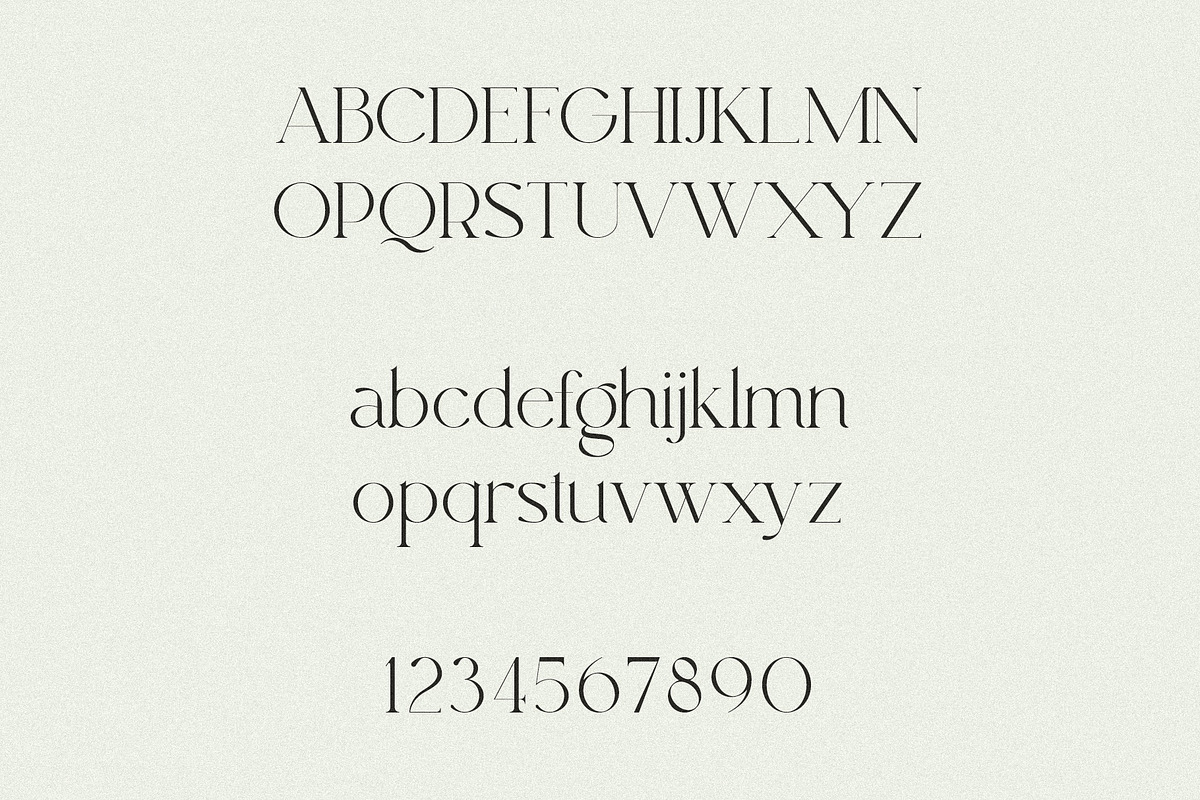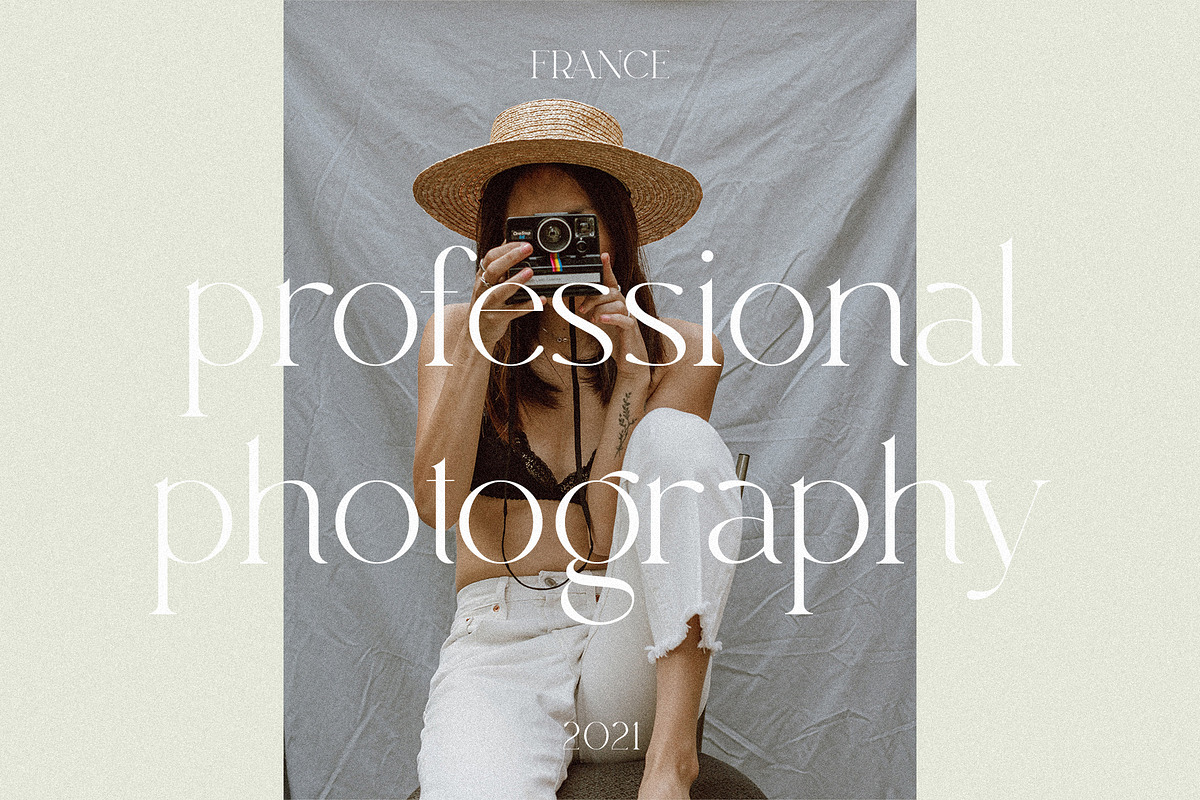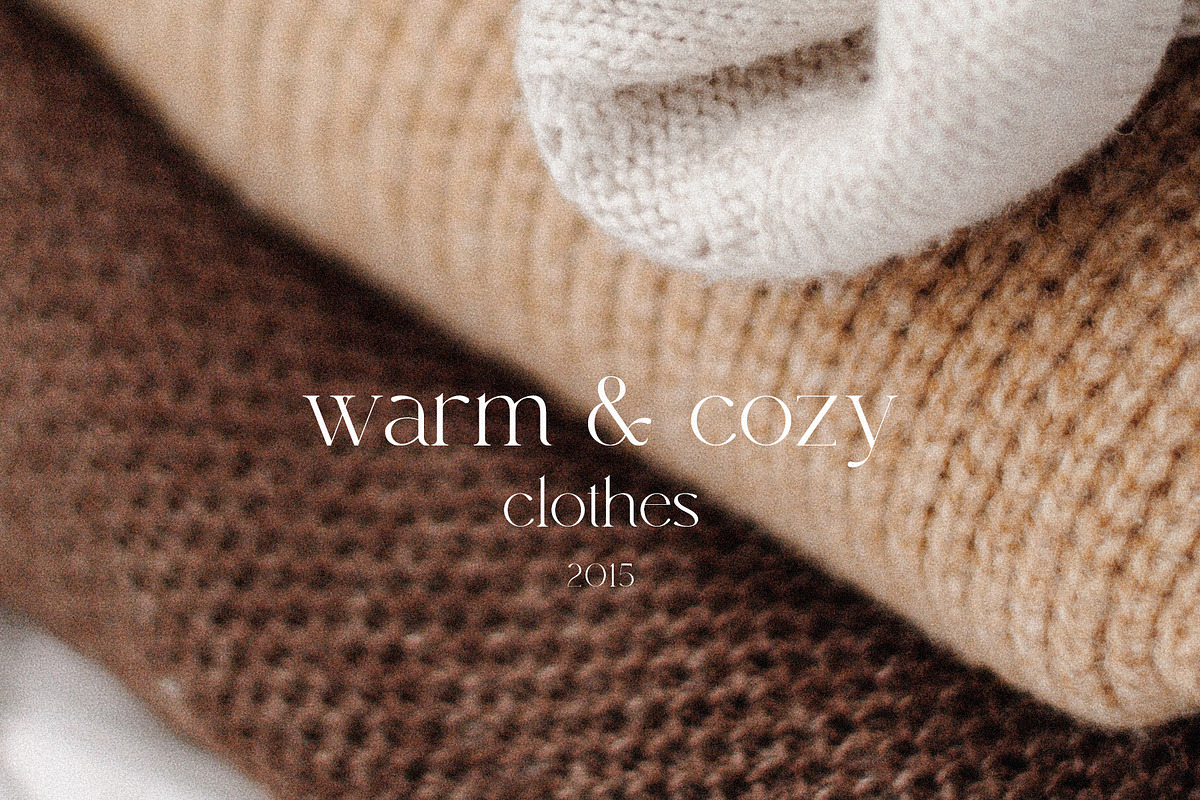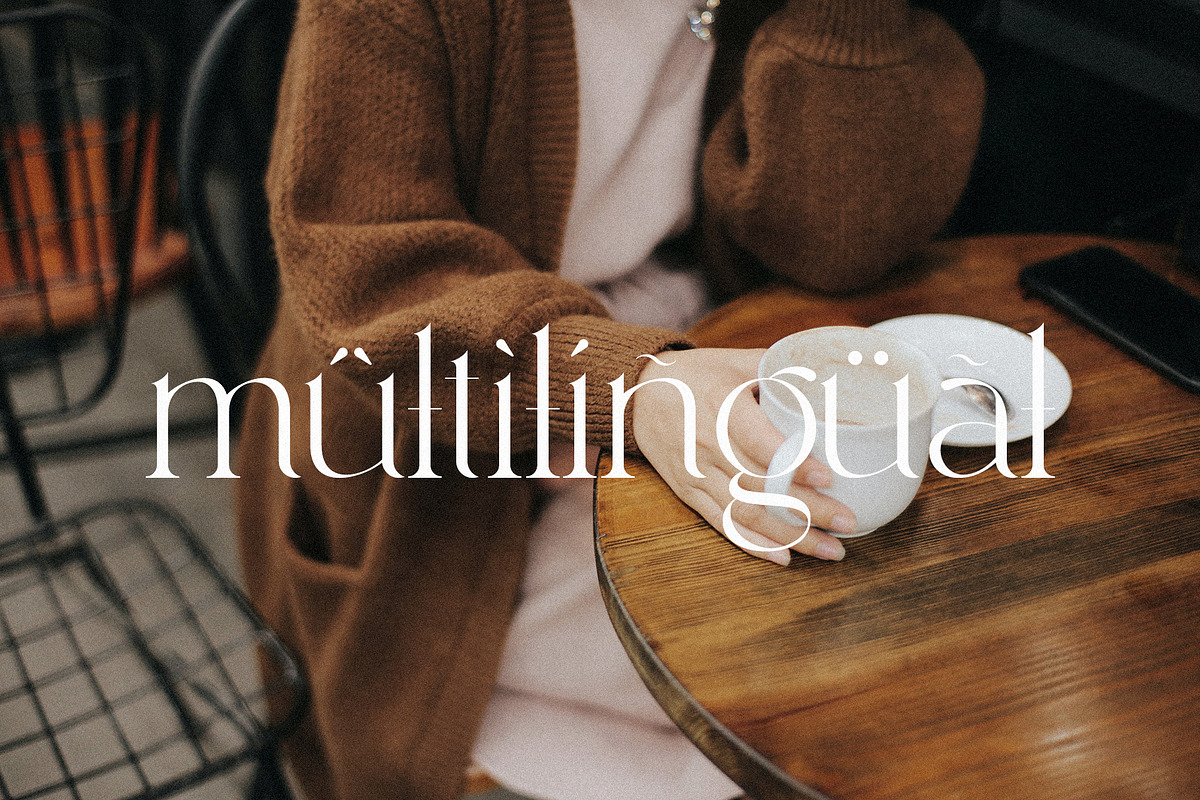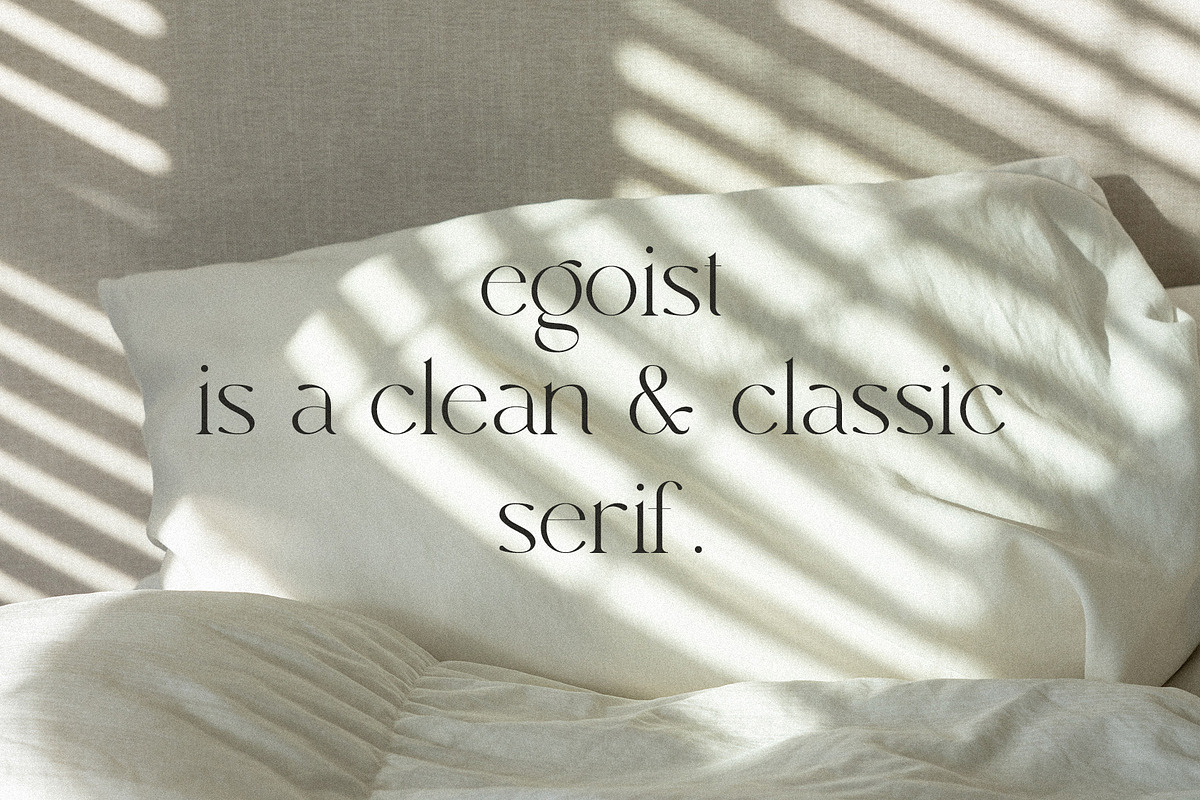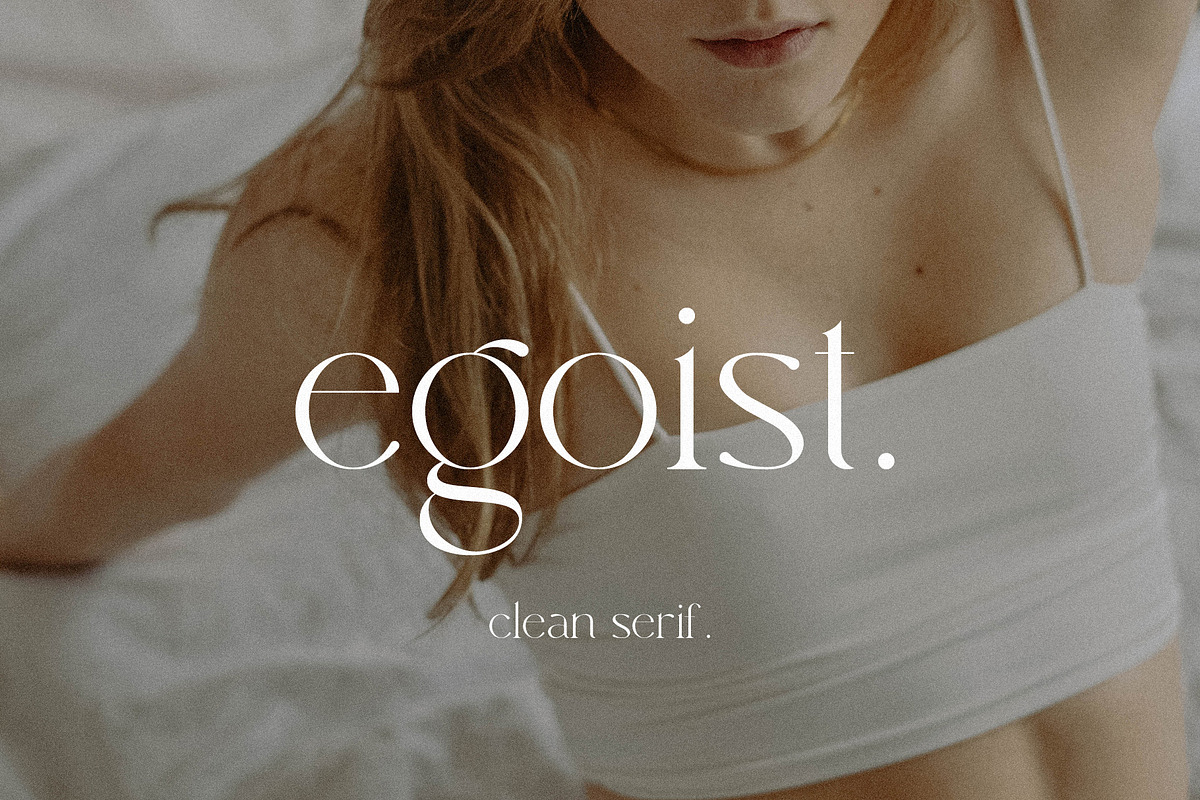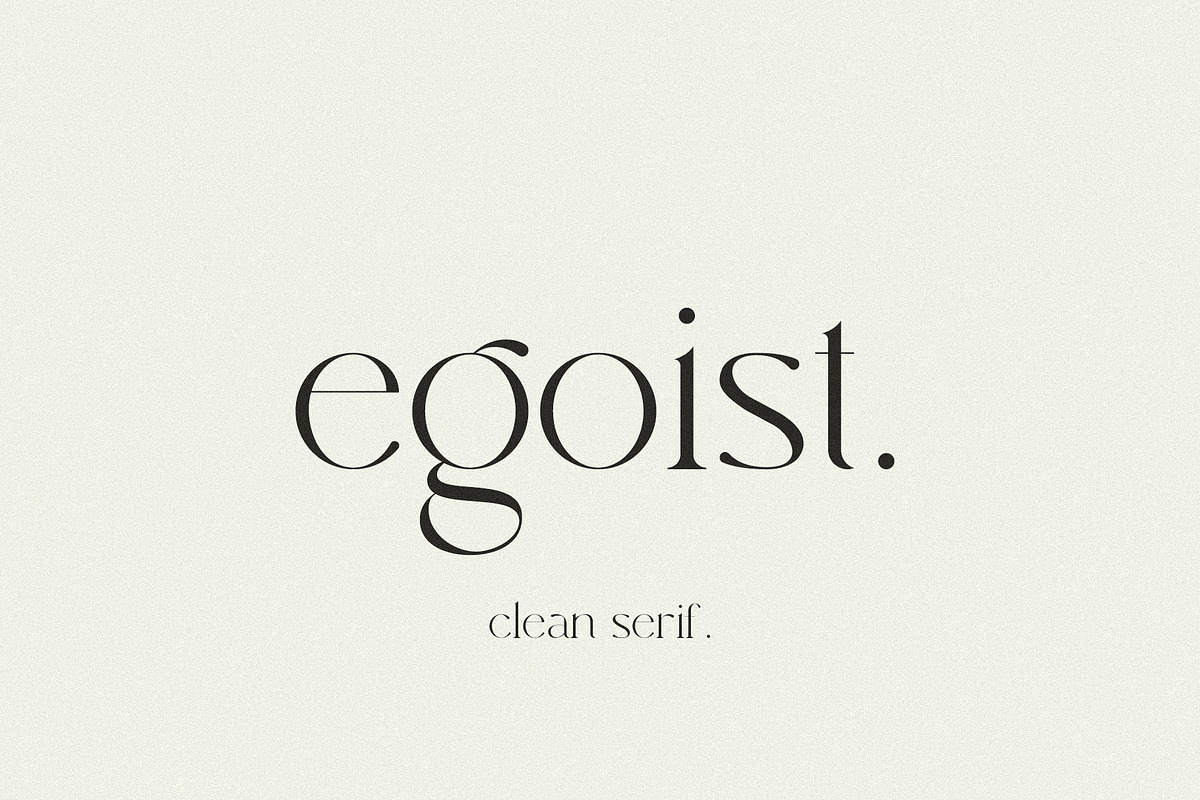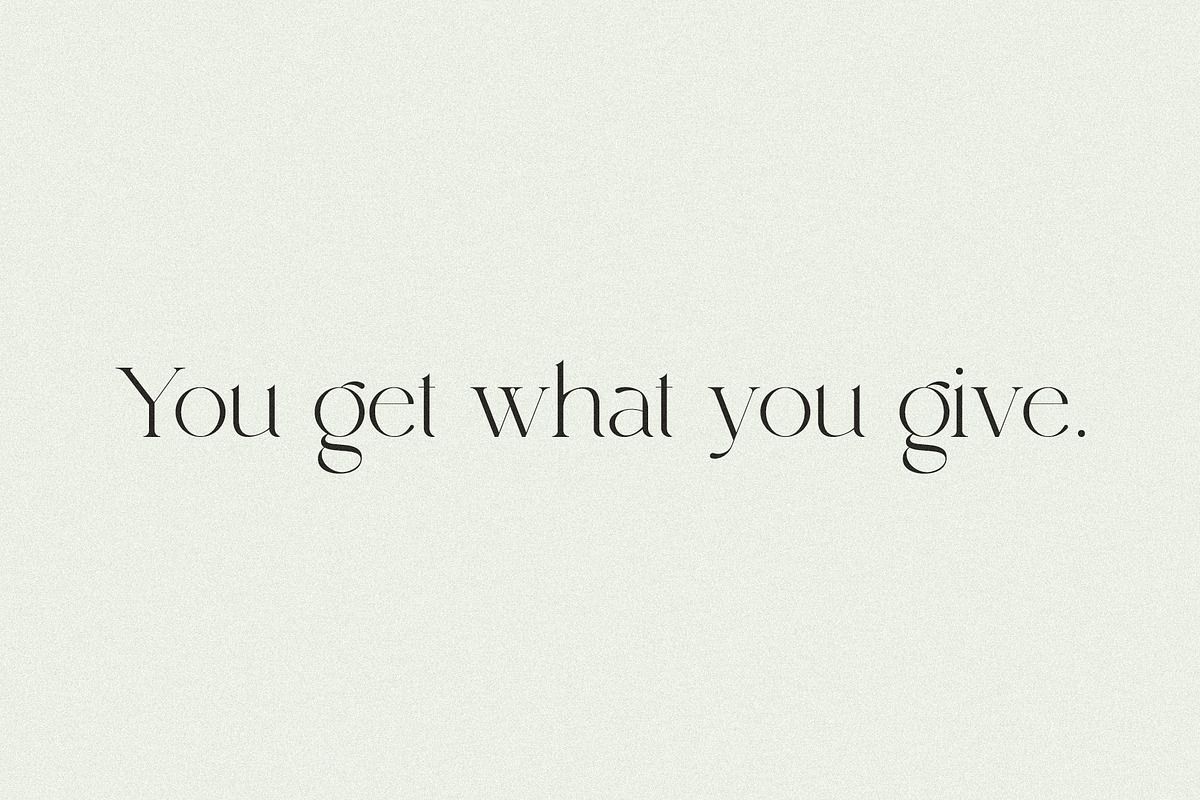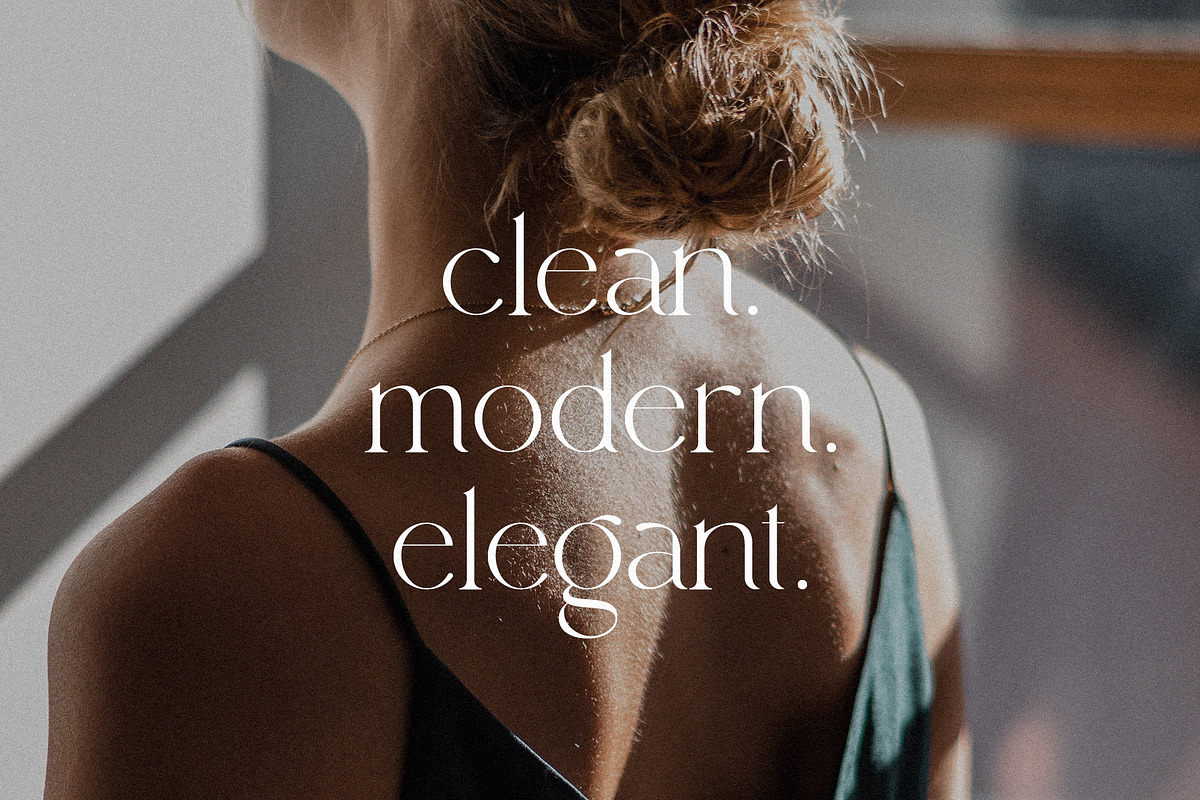
Egoist - Clean Serif
Egoist is a clean & classic serif. Egoist is perfect for magazines, logos, headers, and many more.
Egoist includes:
- Letters
- Symbols & Punctuation
- Basic Ligatures